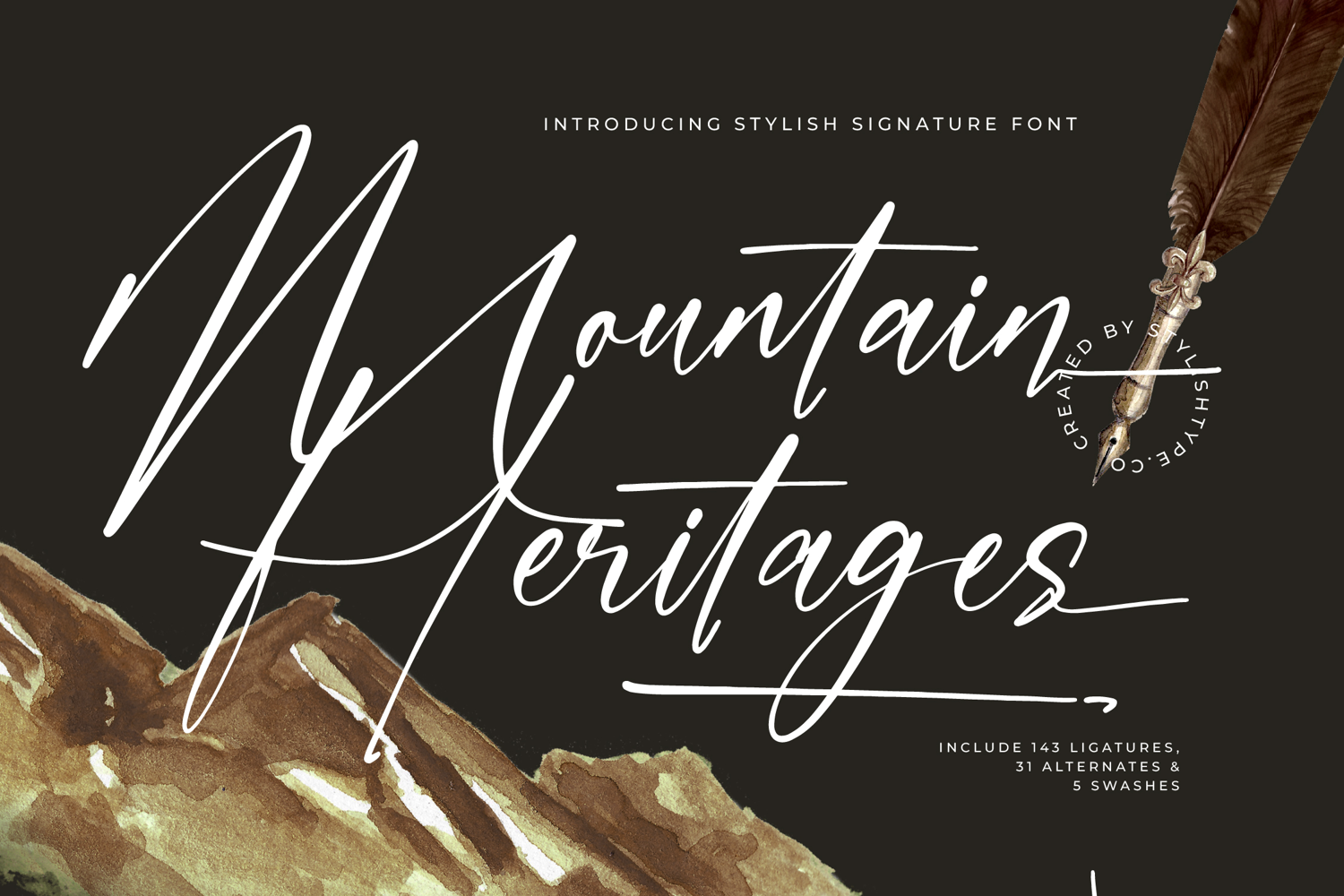
Mountain Heritages - Stylish Signature Font
Elevate your design aesthetic with the captivating flow of Mountain Heritages - Stylish Signature Font. This exquisite script captures the authentic spontaneity of a quill pen, blending high-contrast thin and thick strokes to create a truly luxurious visual rhythm. It is the definitive choice for projects demanding a touch of bespoke artistry and unrivaled sophistication. The natural, free-flowing connections ensure your typography looks less like a standard font and more like custom, hand-drawn calligraphy, perfect for conveying exclusive quality.